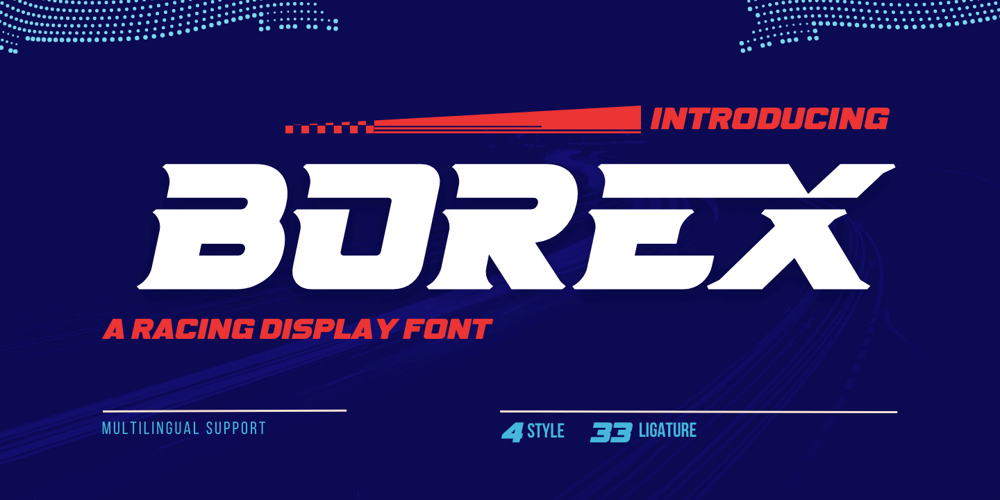
Borex Font Family was designed by Rozikan and published by Twinletter. Borex contains 4 styles and family package options. Introducing Borex, the ultimate font for all your sport racing needs. With its bold and dynamic letterforms, it captures the excitement and energy of the race track. And with four unique variations, including regular, slant, and taper styles, you can customize your designs to fit the tone and theme of your project. Not to mention, the font also comes equipped with alternate characters and unique ligatures to add an extra touch of creativity. So rev up your designs with Borex and get ready for the finish line!What’s Included :- File font- All glyphs Iso Latin 1- Alternate, Ligature- Simple installations- We highly recommend using a program that supports OpenType features and Glyphs panels like many Adobe apps and Corel Draw so that you can see and access all Glyph variations.- PUA Encoded Characters – Fully accessible without additional design software.- Fonts include Multilingual support